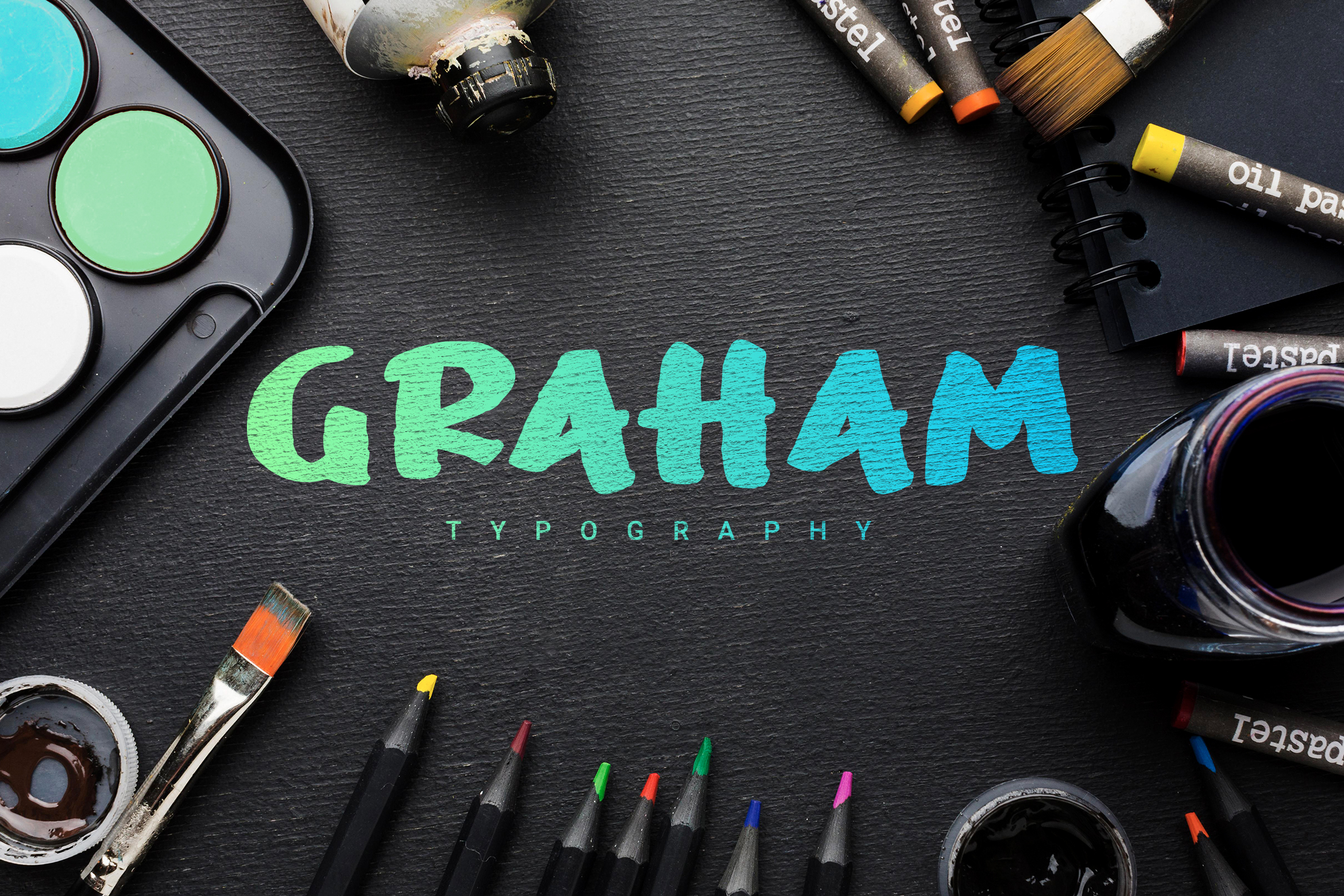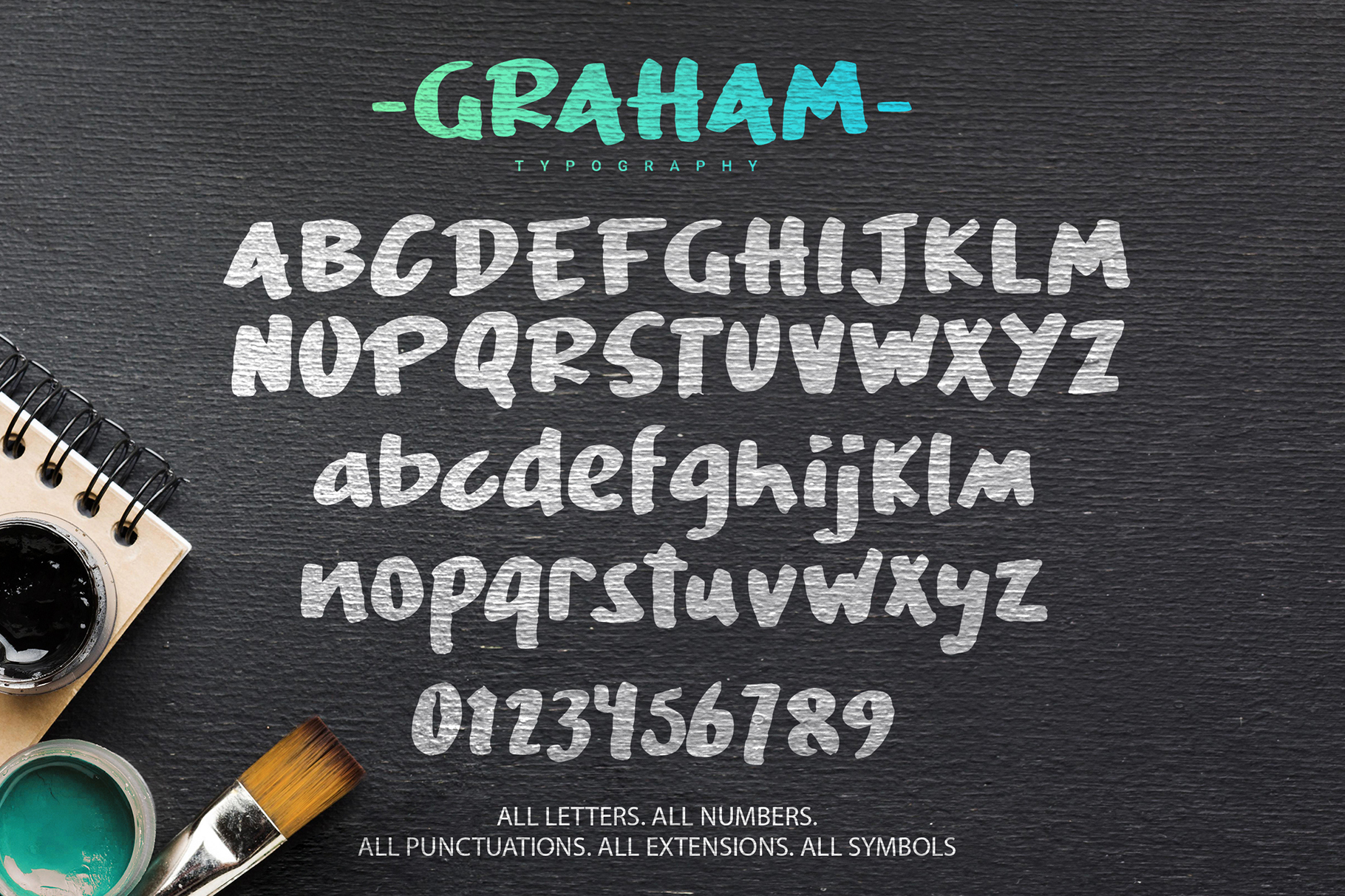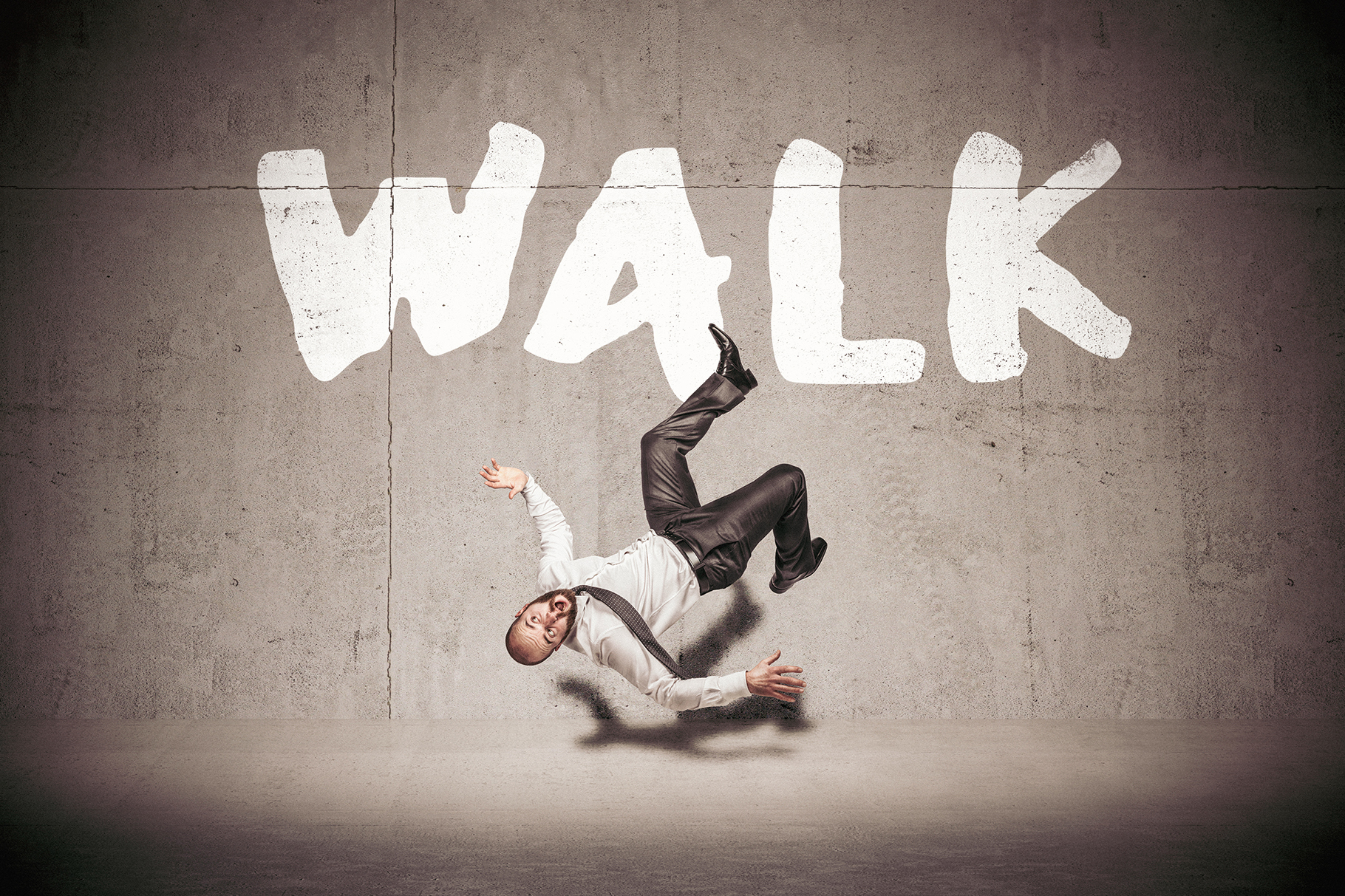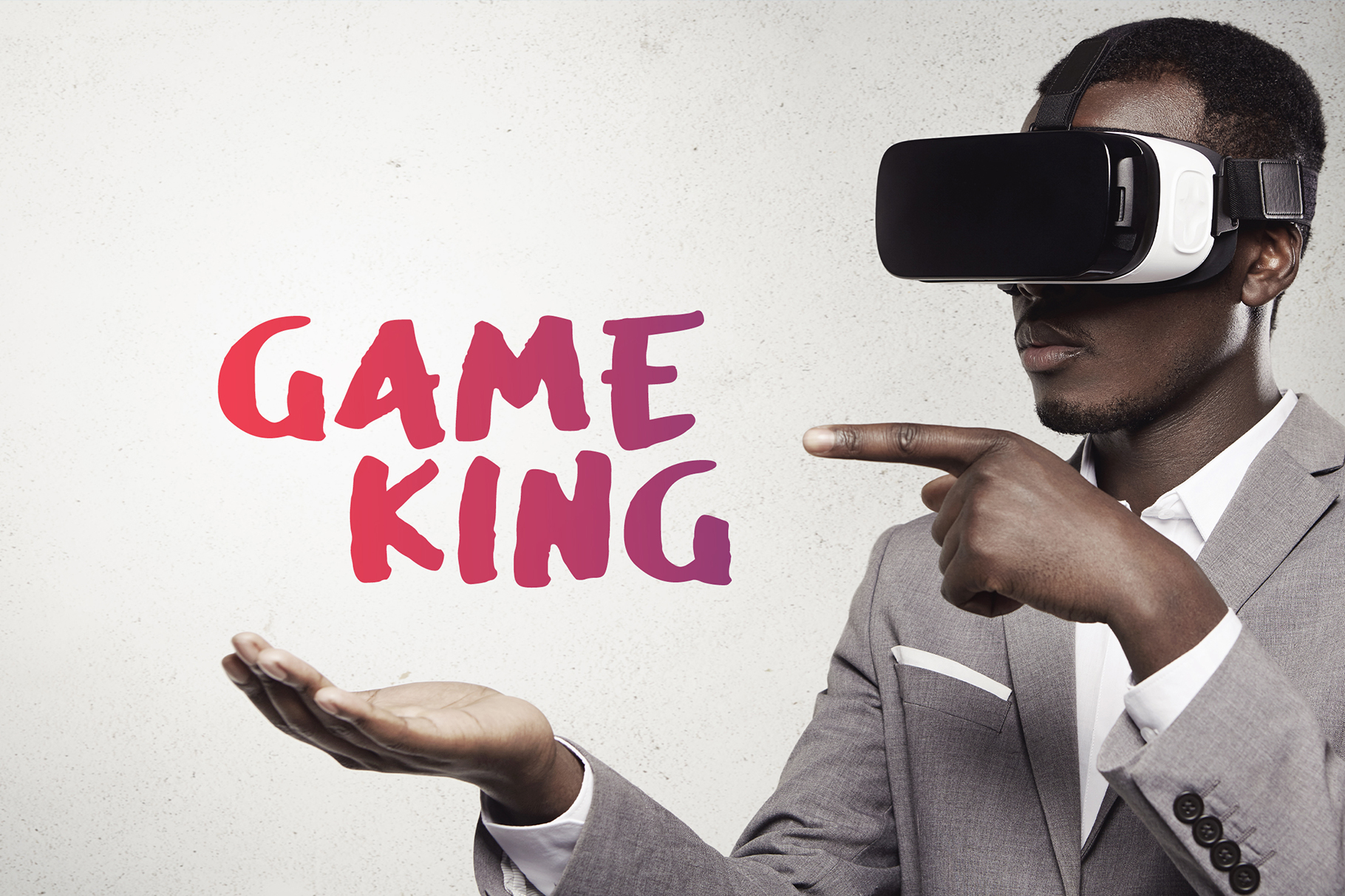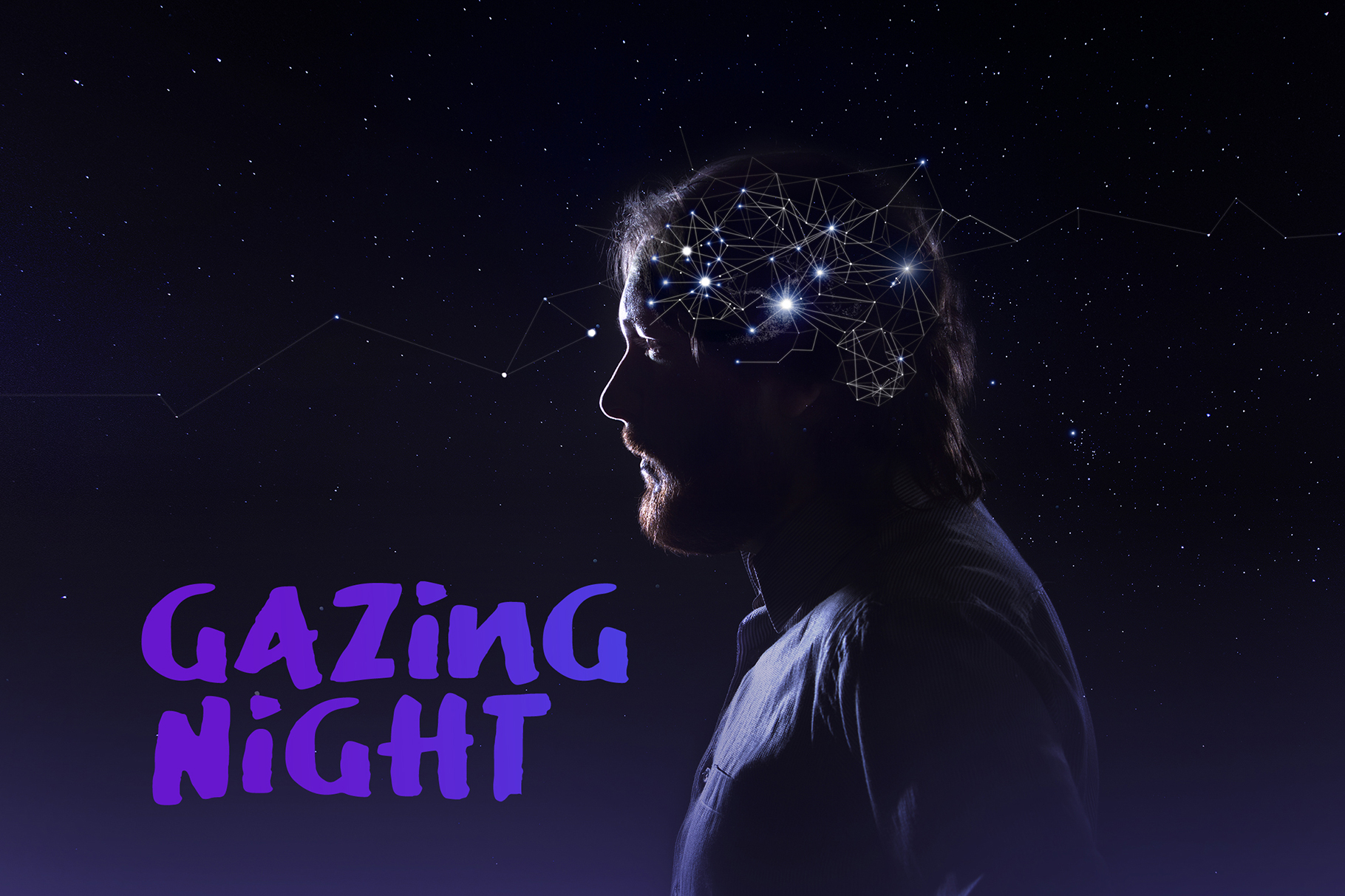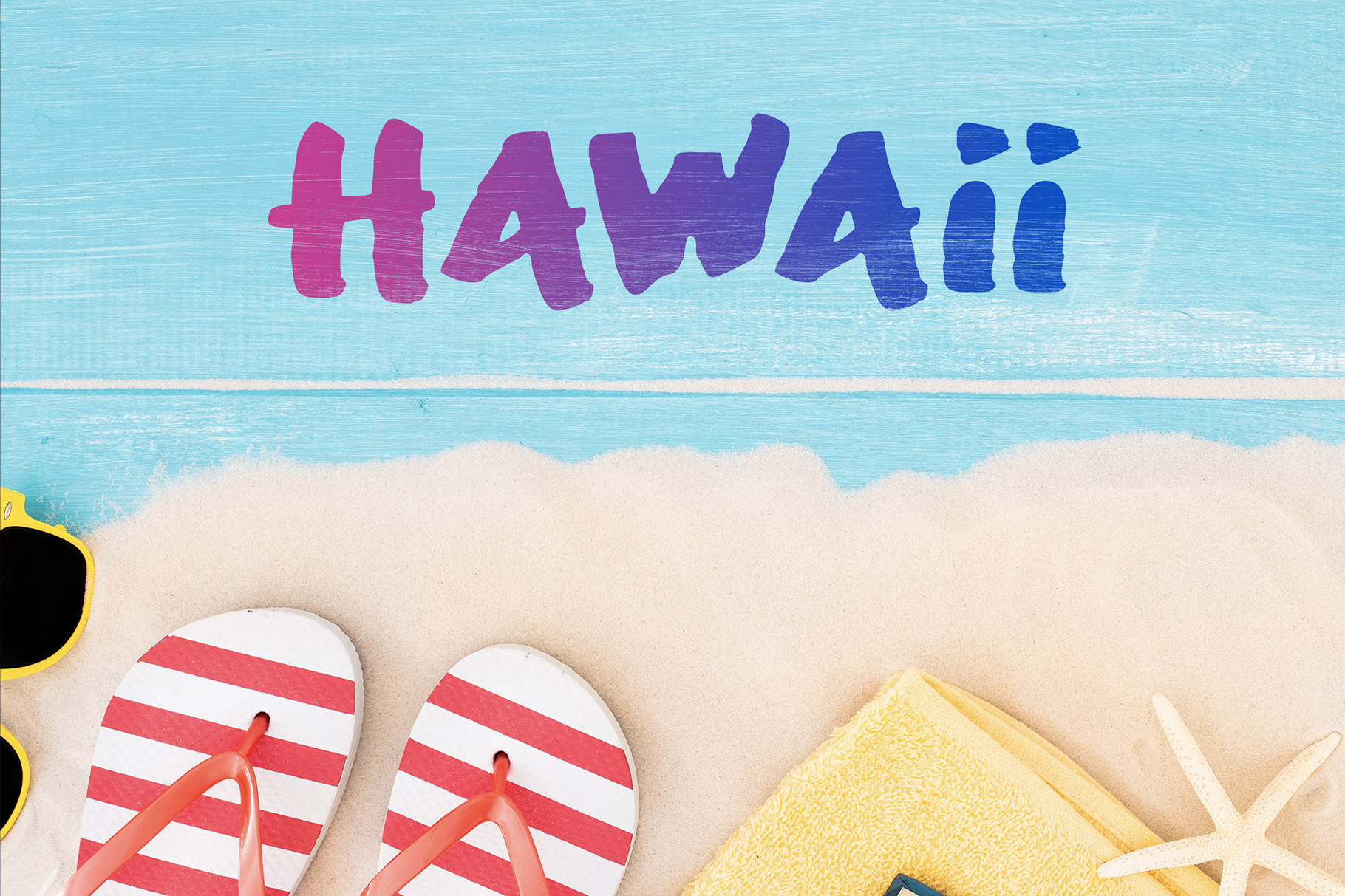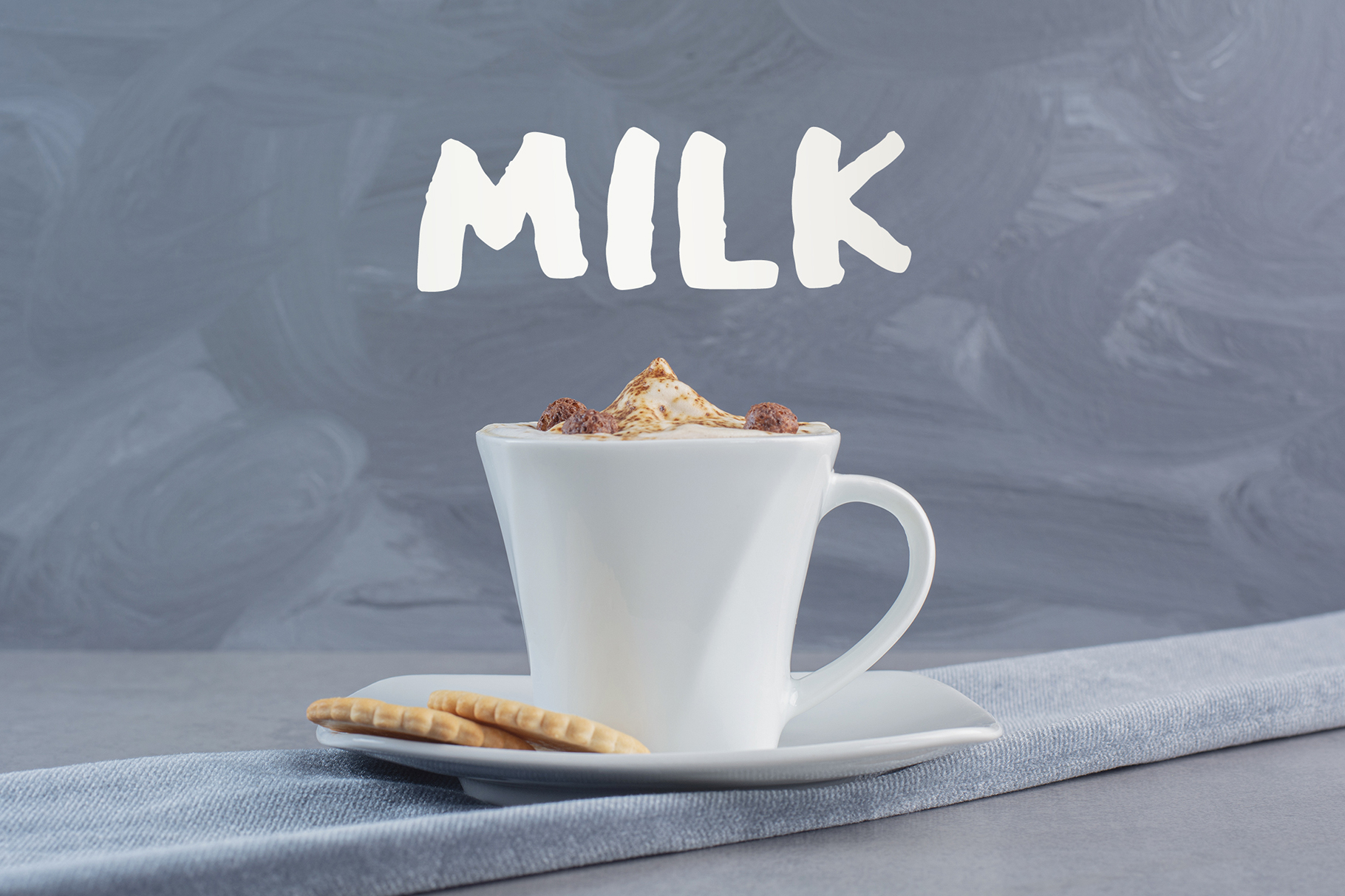
The Graham Typography is a handwritten font with an original and cheerful style. If you need to create something unique, Graham is your font!
- All Uppercase
- Two versions